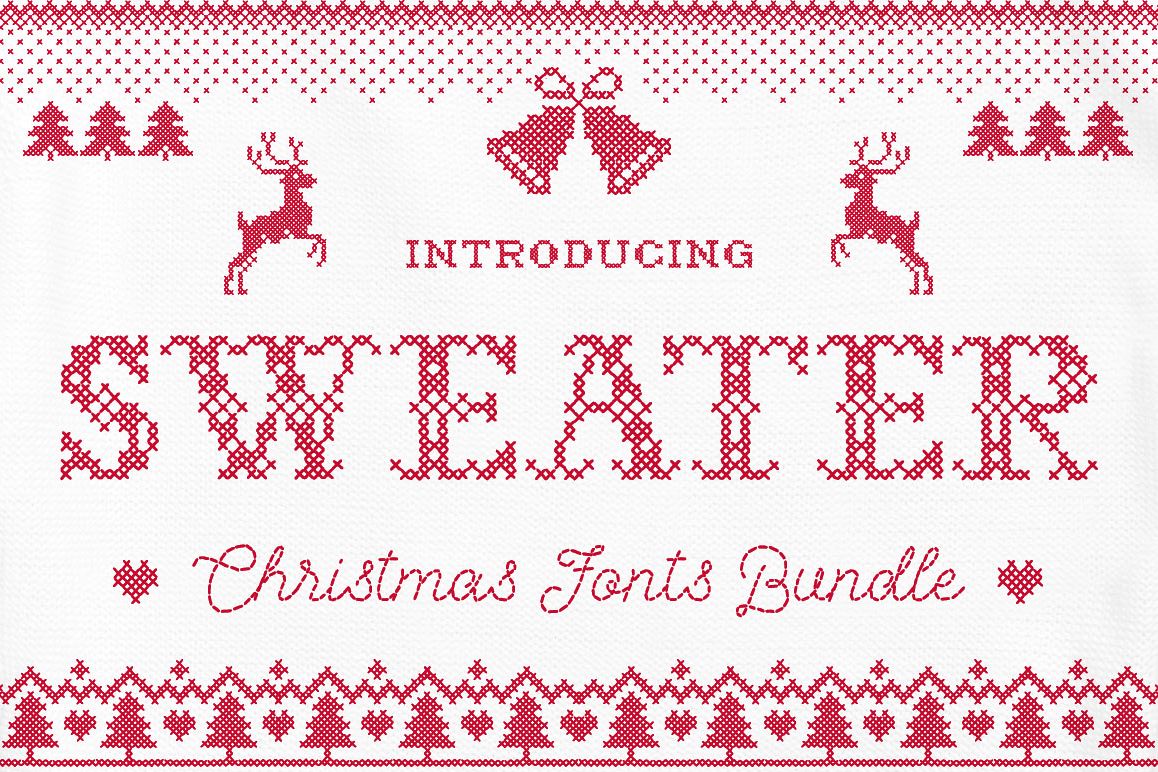
Sweater Font + BONUS
Sweater-Scrip
Sweater-Decorative
Sweater-SlabSeri
Sweater Font is a set of 3 fonts with "SWEATER" effect. Is ideal for any Christmas graphic, for example invitations, gift cards, facebook headers with Christmas promotions, shirts, wallpapers etc. You can use it for your personal use, or for a commercial project.Download folder includes